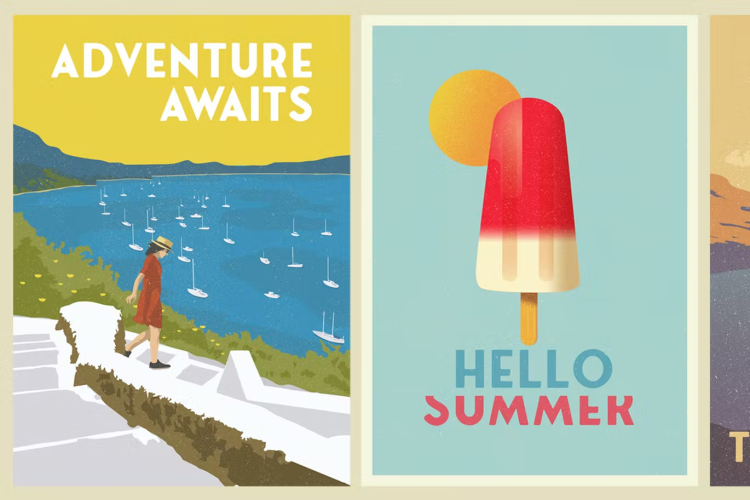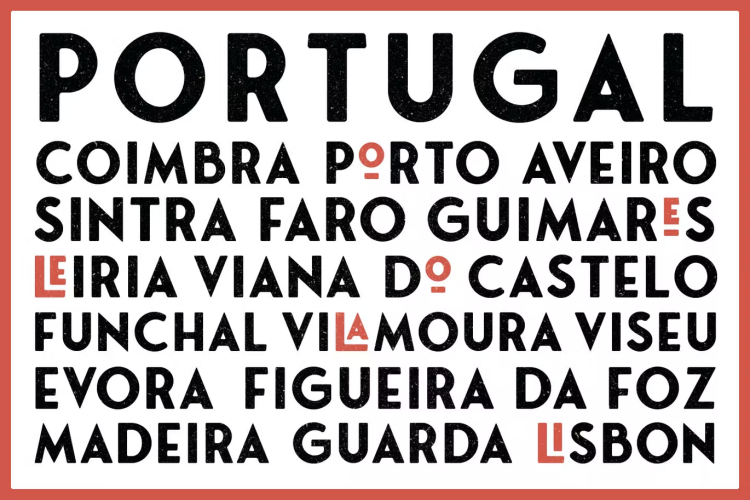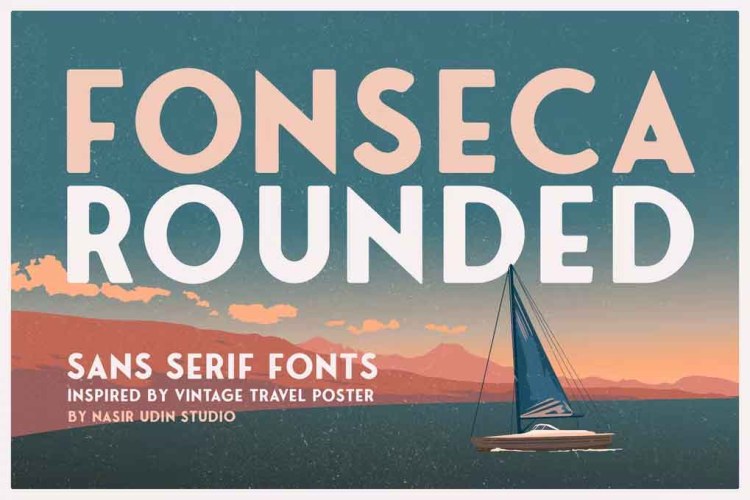
Fonseca Rounded Font
Inspired by vintage travel posters, Fonseca Rounded is a beautiful sans serif font with a contemporary feel. Get inspired by its timeless and classic appeal. This displa…
Inspired by vintage travel posters, Fonseca Rounded is a beautiful sans serif font with a contemporary feel. Get inspired by its timeless and classic appeal.
This display sans serif family is perfect for headlines, posters, logos, branding projects, magazines, and packaging.
Where Fonseca Rounded Font works best
Fonseca Rounded Font keeps its shape at 14 and 16 pixels, which is where interface text actually lives. Numbers and capitals stay distinguishable in tables.
Presentations are read at a distance; a clean sans with a strong bold is the safest hierarchy you can build in a hurry.
Simple letterforms survive angles, glare and movement, so Fonseca Rounded Font suits door signs, menus boards and exhibition panels.
What kind of work does Fonseca Rounded Font suit?
It sits in the Sans Serif Fonts group and reads as classic, contemporary, modern, rounded. That makes it a candidate wherever those qualities help: headings, packaging, social graphics and brand work. Set it at the size you plan to use before deciding.